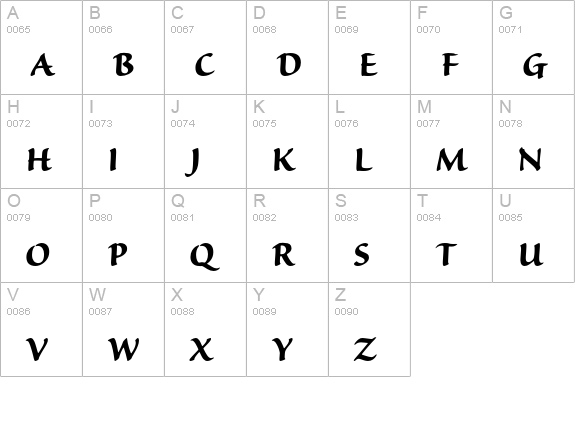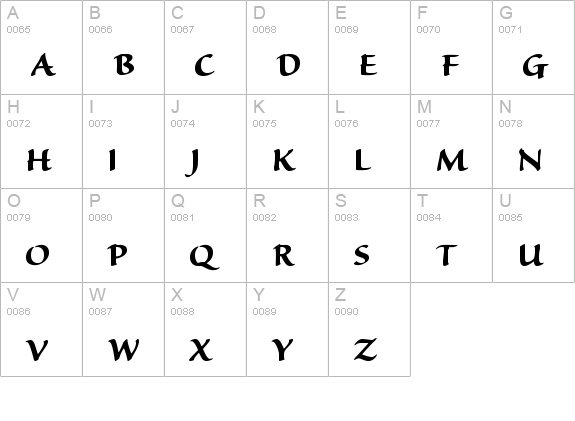
Sanvito Pro Bold Caption Font Details
Sanvito Pro Bold Caption is a strong, high-contrast variant in the Sanvito typeface family \xE2\x80\x94 well suited to headlines, attention-grabbing titles, and strong calls-to-action.
Sanvito Pro Bold Caption is a visually striking and versatile font that effortlessly combines elegance and modernity. With its bold and captivating strokes, this font commands attention and exudes a sense of confidence and authority. Its clean and crisp letterforms make it perfect for captions, headlines, and any project that requires a bold and impactful statement. The exceptional legibility of Sanvito Pro Bold Caption ensures that your message is conveyed with clarity and precision, making it an ideal choice for both print and digital media. Whether you're designing a magazine cover, creating marketing materials, or crafting a logo, this font will add a touch of sophistication and professionalism to your work. One of the most remarkable aspects of Sanvito Pro Bold Caption is that it is freely available to download at FontsMarket.com. This means that you can add this stunning font to your collection without any cost, allowing you to elevate your design projects without breaking the bank. Whether you're a professional designer or a hobbyist, this free font offers you the opportunity to unleash your creativity and create visually captivating designs. So why wait? Download Sanvito Pro Bold Caption today and experience the power and beauty of this remarkable font for yourself. With its bold presence and timeless appeal, it's sure to become a staple in your font library. Don't miss out on this incredible opportunity to enhance your design projects with a free font that combines elegance, modernity, and accessibility.